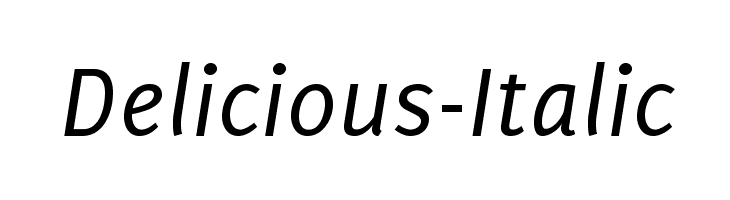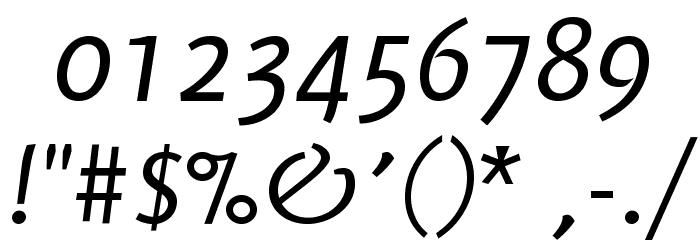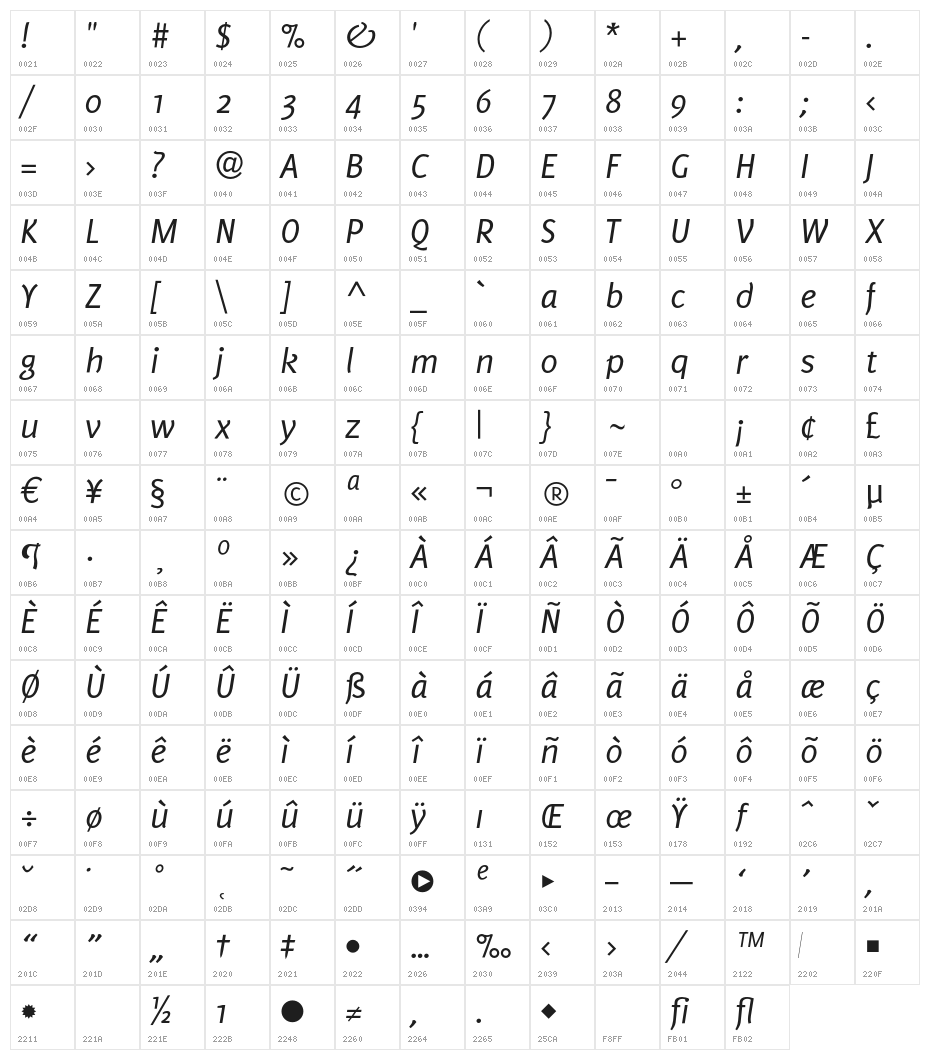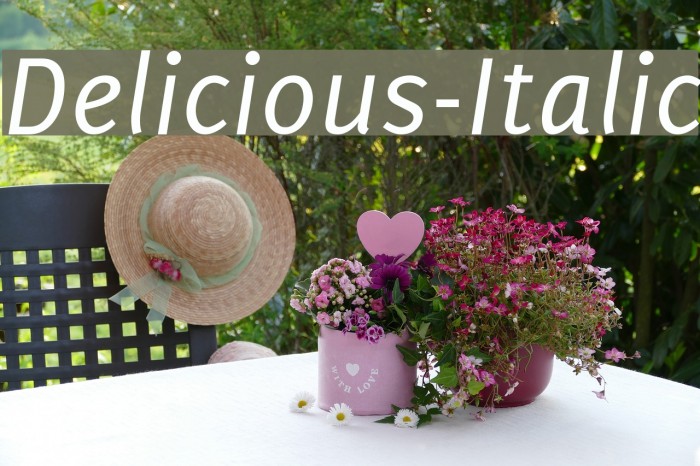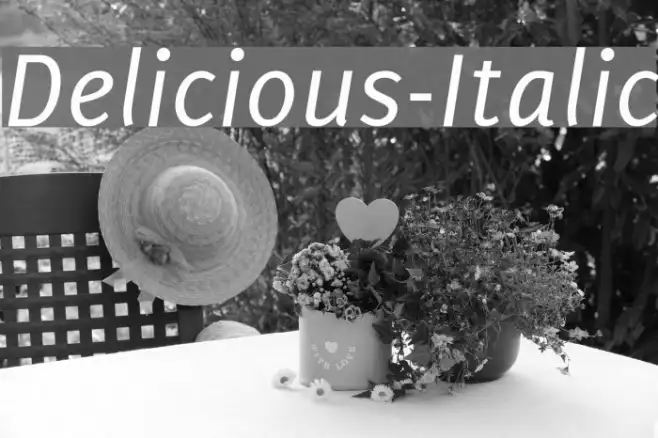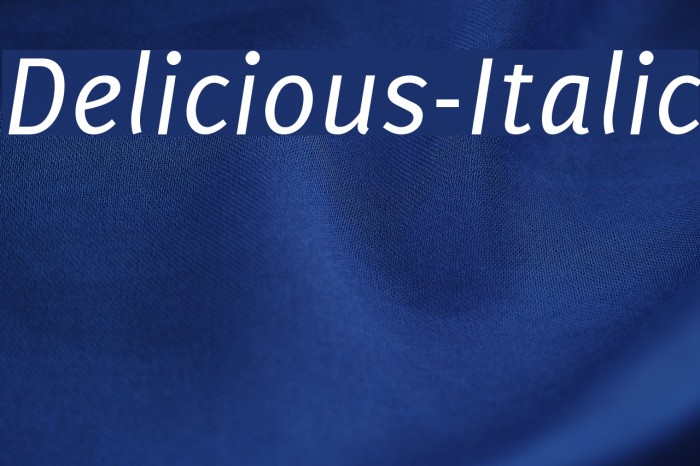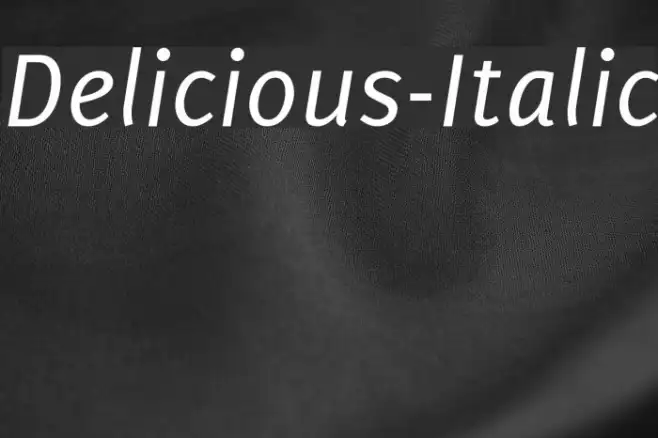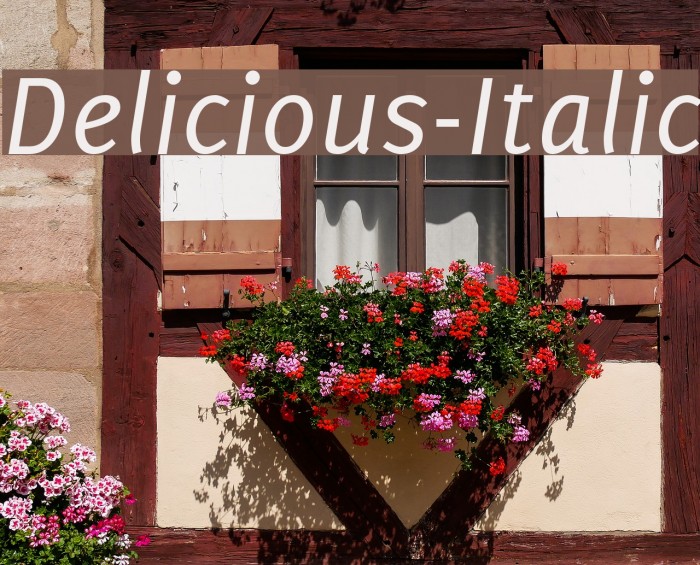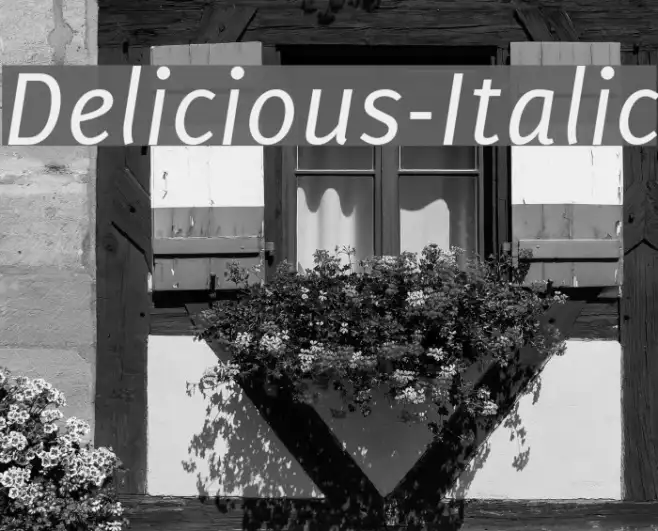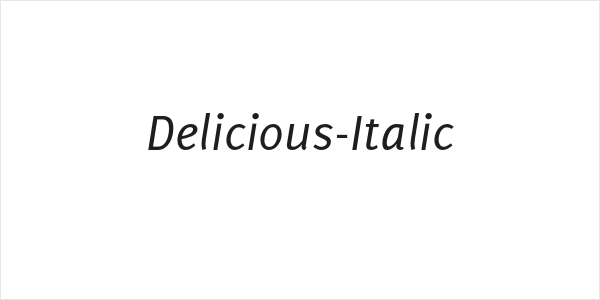
Delicious-Italic Font
Delicious-Italic Description
This font features a sleek and elegant italic style, characterized by its smooth curves and slightly slanted letters. The uppercase and lowercase letters maintain a consistent flow, enhancing readability while adding a touch of sophistication. The numerals are well-proportioned, complementing the overall design. Special characters are distinct and harmonize with the alphabetic characters, making this font versatile for various applications. The font's clean lines and subtle elegance make it suitable for both formal and creative projects.